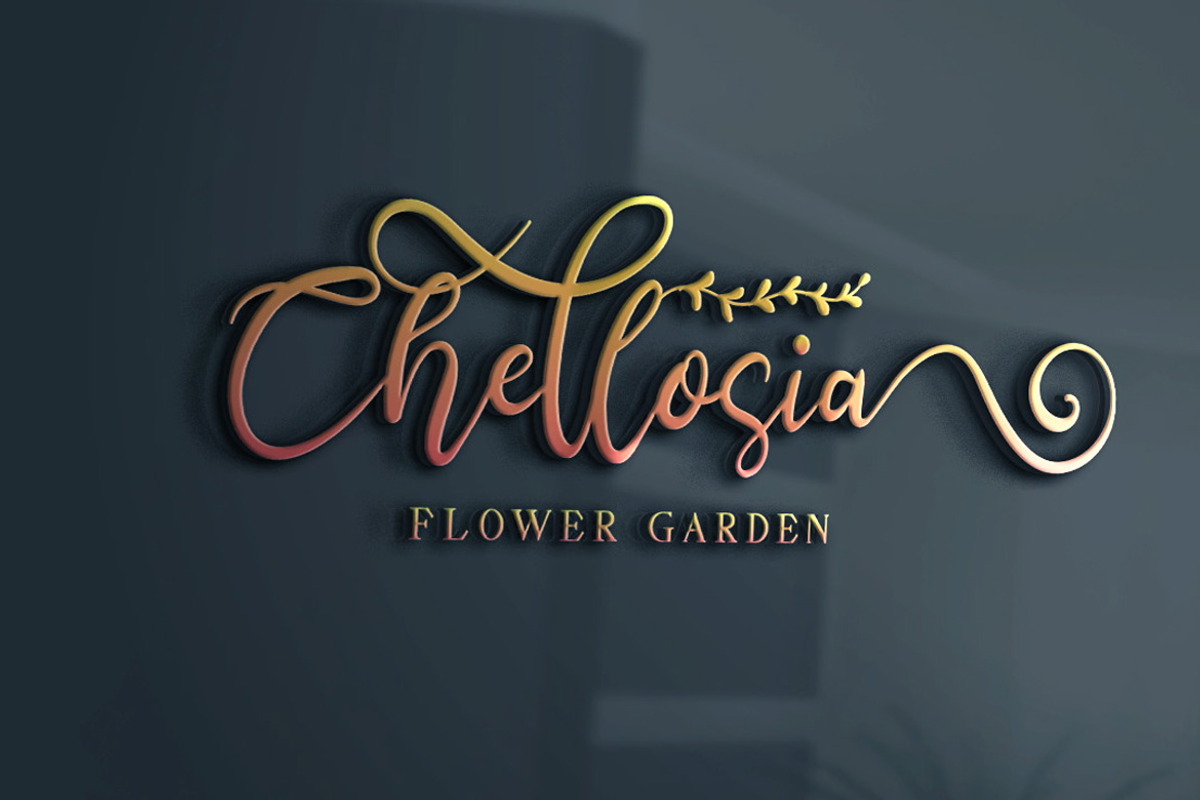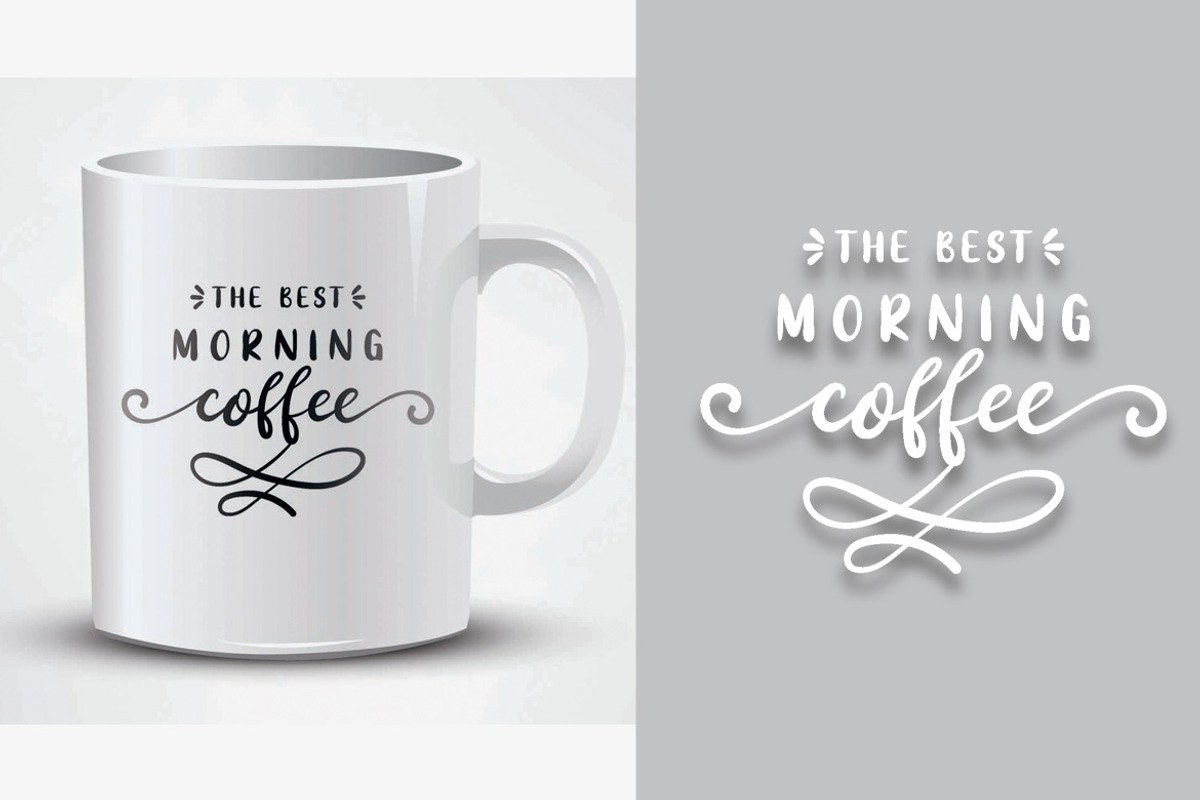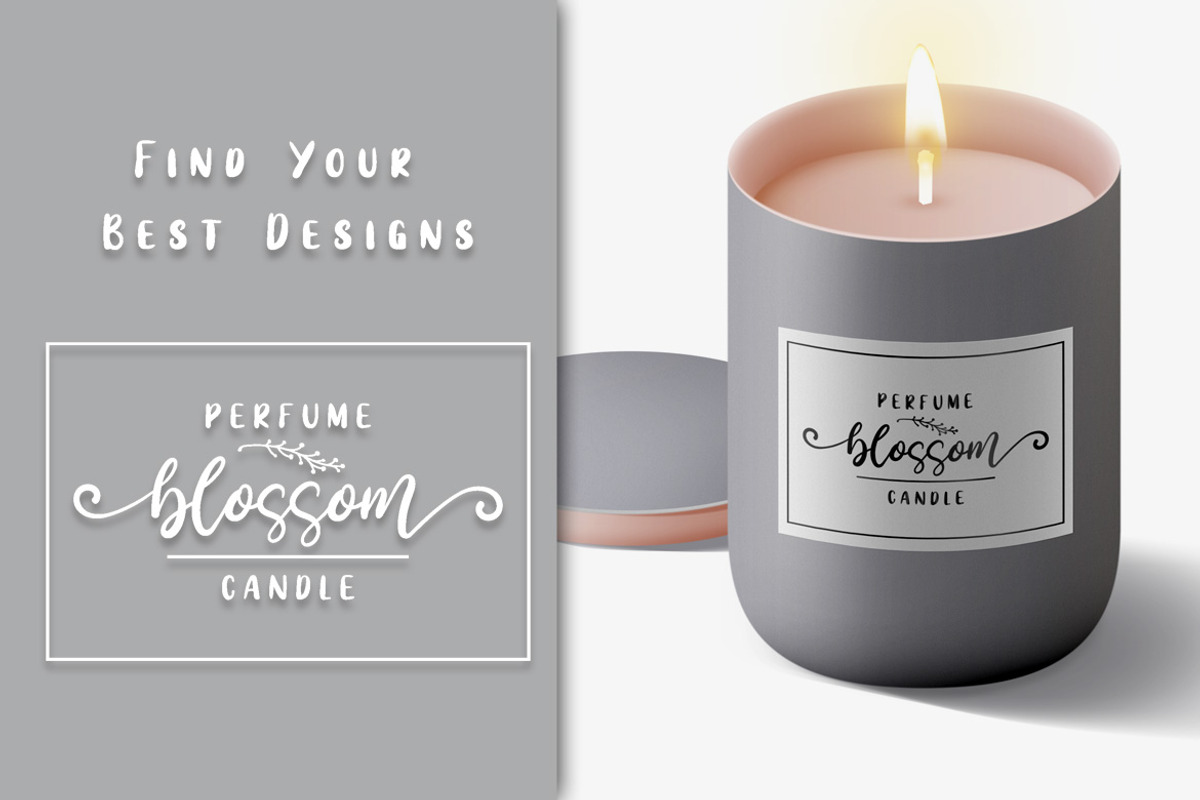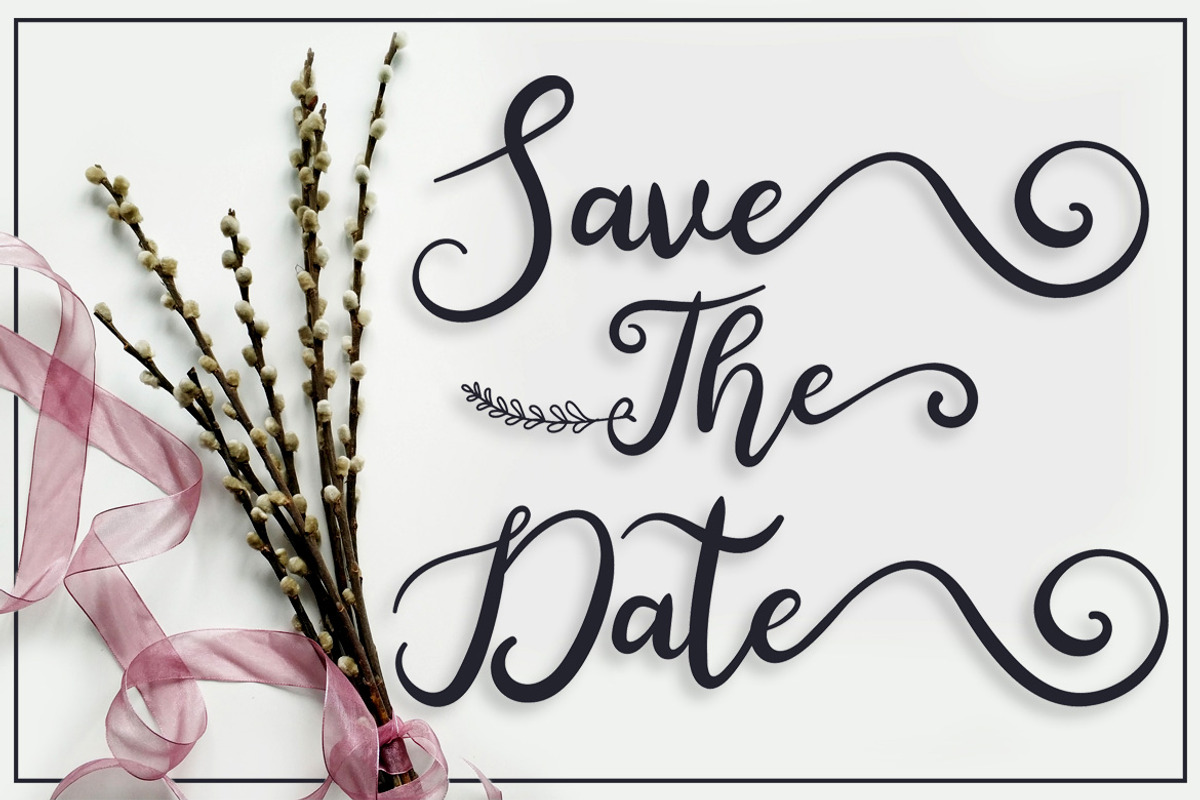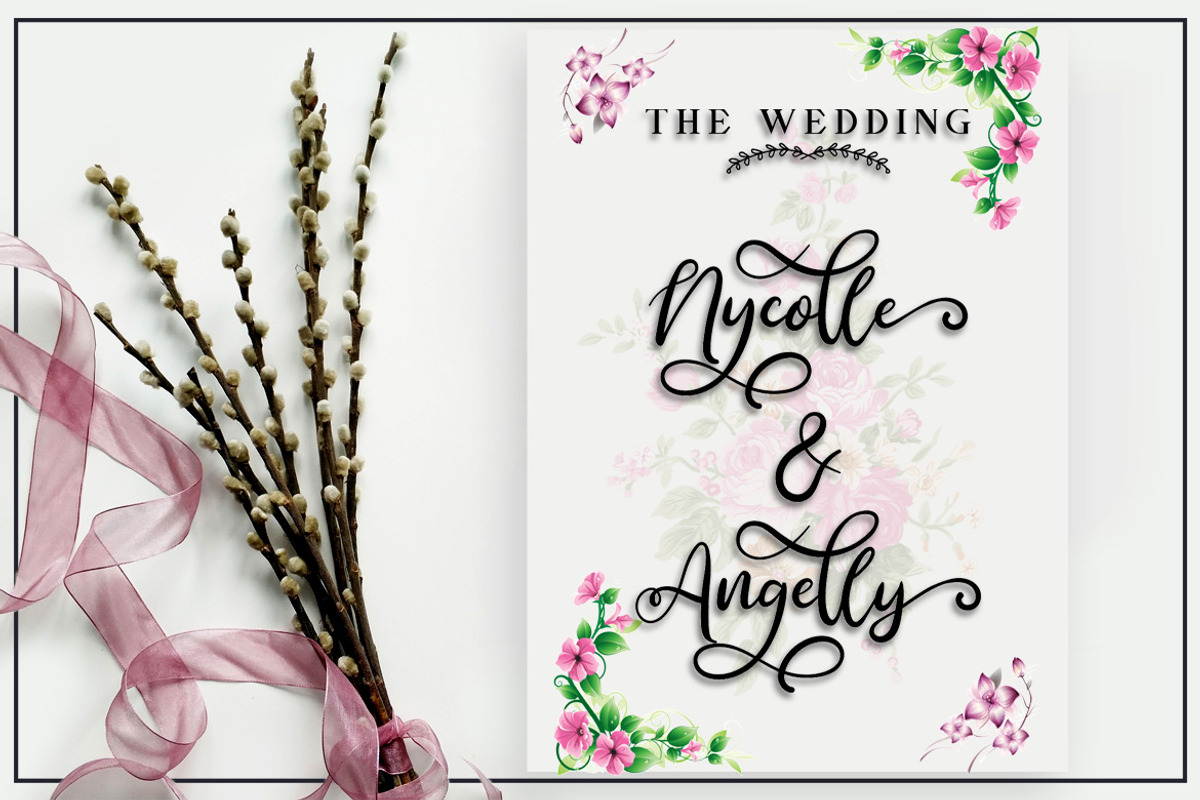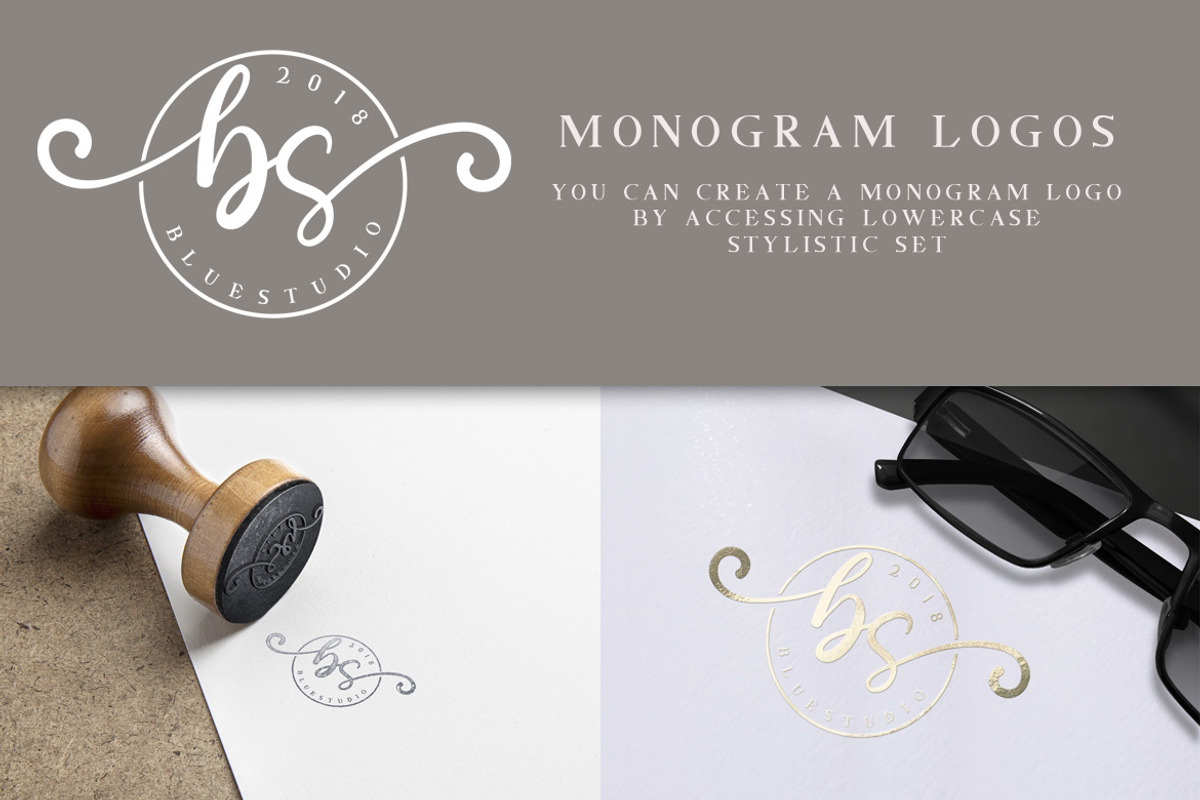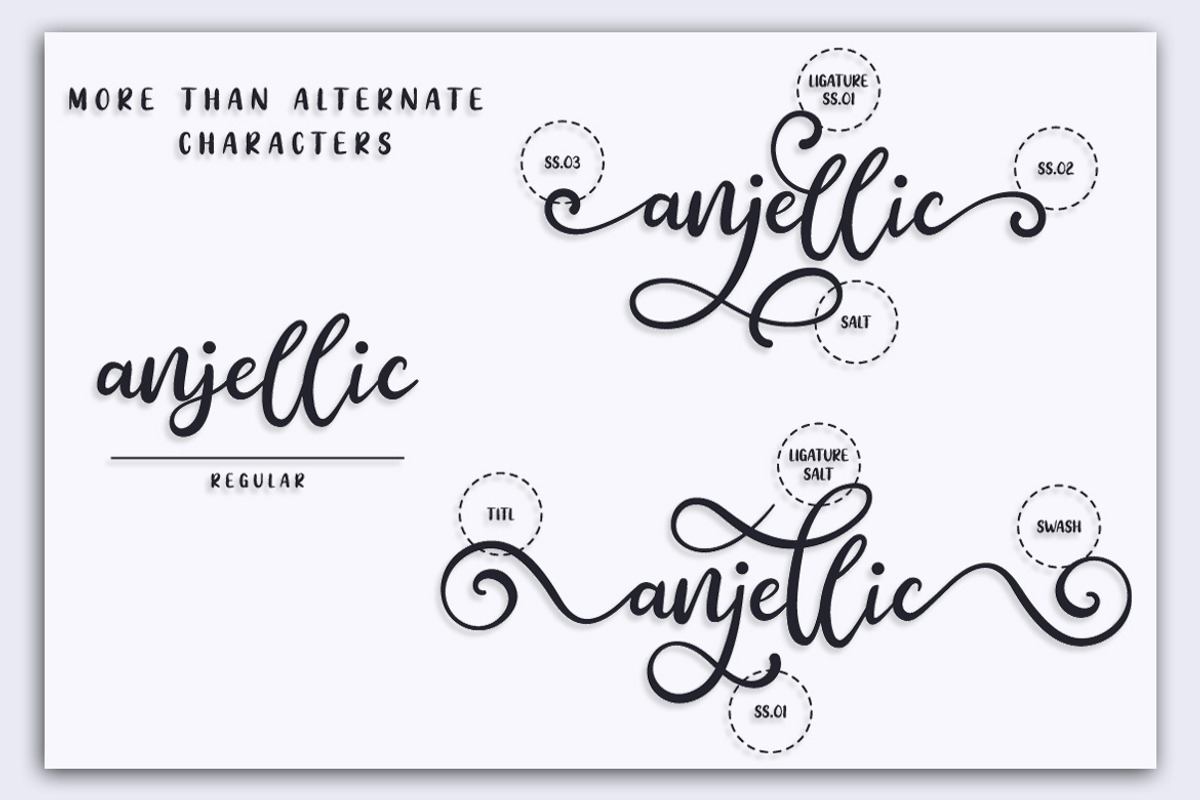
Anjellic // Font Duo & Extras
Introducing our latest product Anjellic.
Anjellic consists of script fonts and paired with Sans fonts writing in handwriting.
Anjellic offers beautiful typographic harmony for a variety of design projects, including logos & branding, wedding designs, social media posts, advertisements, product designs, magazines and others.
-Anjellic Script (OTF/TTF) - Alternate contains stylistic, swash, stylistic set ss01 - ss03 , and ligatures
-Multilingual support - spread your message globally AÀÁÂÃÄÅCÇDÐEÈÉÊËIÌÍÎÏNÑOØÒÓÔÕÖUÙÜÚÛWYÝŸÆßÞþ